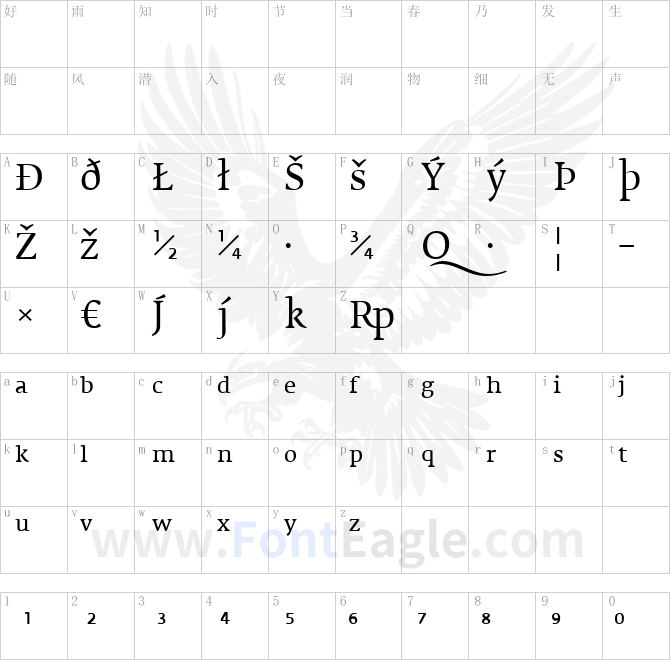
- Font name:FedraSerifB
- Font Subfamily ID:TransType 2 PC;FedraSerifB-BookExpert;001.000;01/27/04 09:55:44
- Font Full Name:FedraSerifB-BookExpert
- Postscript:FedraSerifB-BookExpert